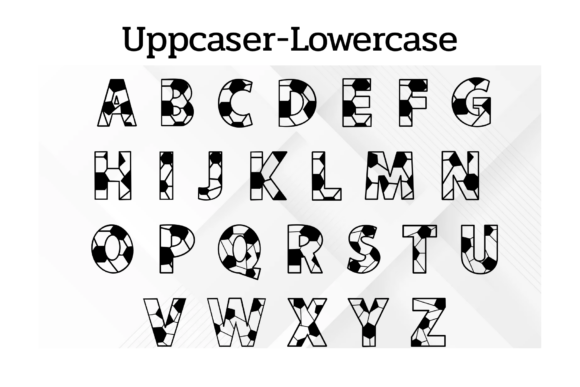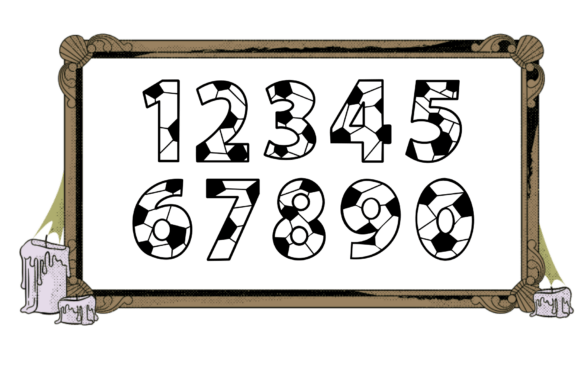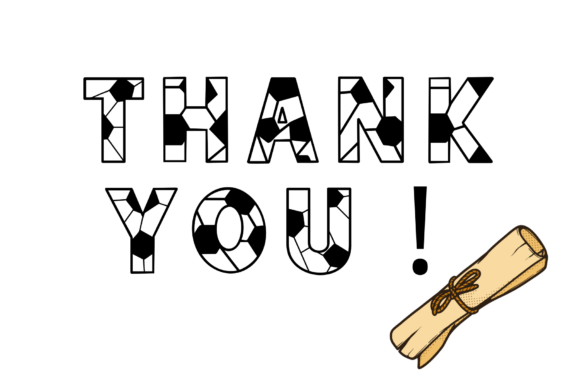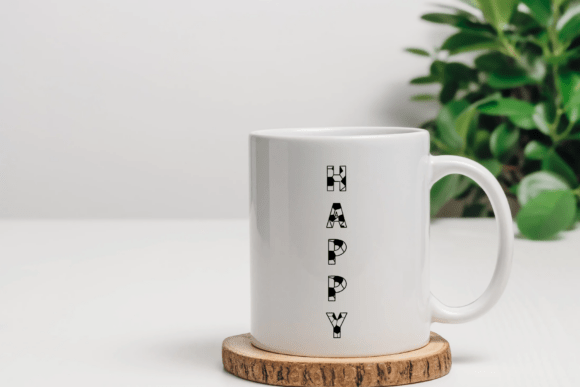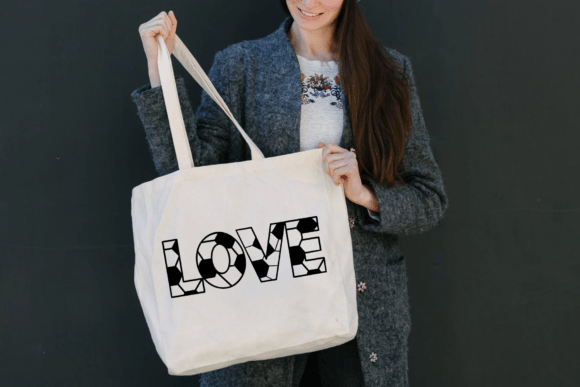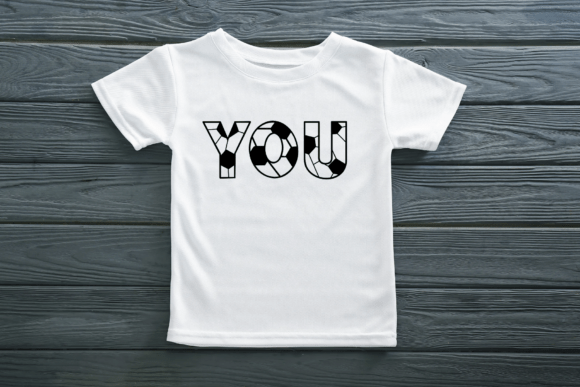
Introduction to Monoglass Font
| 📌 Product Name | Monoglass Font |
| 👤 Author | Chada Art |
Enter the Monoglass Font, a free, high-quality decorative font that’s perfect for a wide range of creative projects. With its transparent background and sleek design, this font is an excellent addition to any design resource. Whether you’re working on a personal project or a commercial design, the Monoglass Font is sure to bring a touch of elegance to your work.
As a valuable resource for designers, the Monoglass Font offers endless possibilities for creative expression. From social media posts to banners, mugs, and even greeting cards, this font is a versatile design tool that’s sure to inspire your next project.
Key Features of Monoglass Font
- High-quality, free downloadable font perfect for creative projects and design resources.
- Unique, modern design with a transparent background, ideal for digital art and graphic design.
- Designed with a high resolution of 300 DPI, suitable for print and digital applications.
- Monoglass Font is ideal for use in various creative projects, including logos, typography, and branding materials.
Honest Review: Monoglass Font
I recently had the chance to work with the Monoglass Font, and I must say it’s been a delightful experience. As a designer, I’m always on the lookout for high-quality design resources that can elevate my creative projects.
What works well: ✨ The Monoglass Font has a unique and modern aesthetic that’s perfect for a wide range of designs. Its transparent background makes it easy to overlay on any image or background, giving you endless possibilities. The font is also incredibly versatile, making it suitable for both print and digital projects.
Here are some of the features that stood out to me:
- Transparent background for easy overlaying
However, I did encounter a few limitations: ⚠️ The font is only available in a single weight, which may not be suitable for designs that require multiple font weights. Additionally, the font’s unique style may not be to everyone’s taste.
Overall, I’m impressed with the Monoglass Font, and I think it’s a great addition to any designer’s toolkit. Its unique style and high-quality design make it an excellent choice for creative projects, and the free download is a major bonus.
To get the most out of Monoglass Font, use it in combination with other design elements to create a cohesive look. Experiment with different font sizes, colors, and styles to find the perfect balance for your project.
Monoglass Font is perfect for use in creative projects such as logos, brochures, and social media graphics. Its unique style and transparent background make it a great choice for creating eye-catching and professional-looking designs.